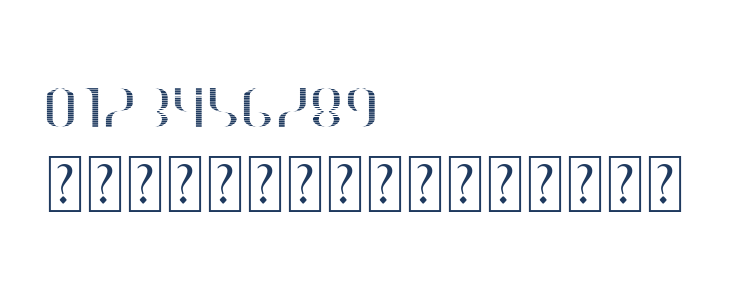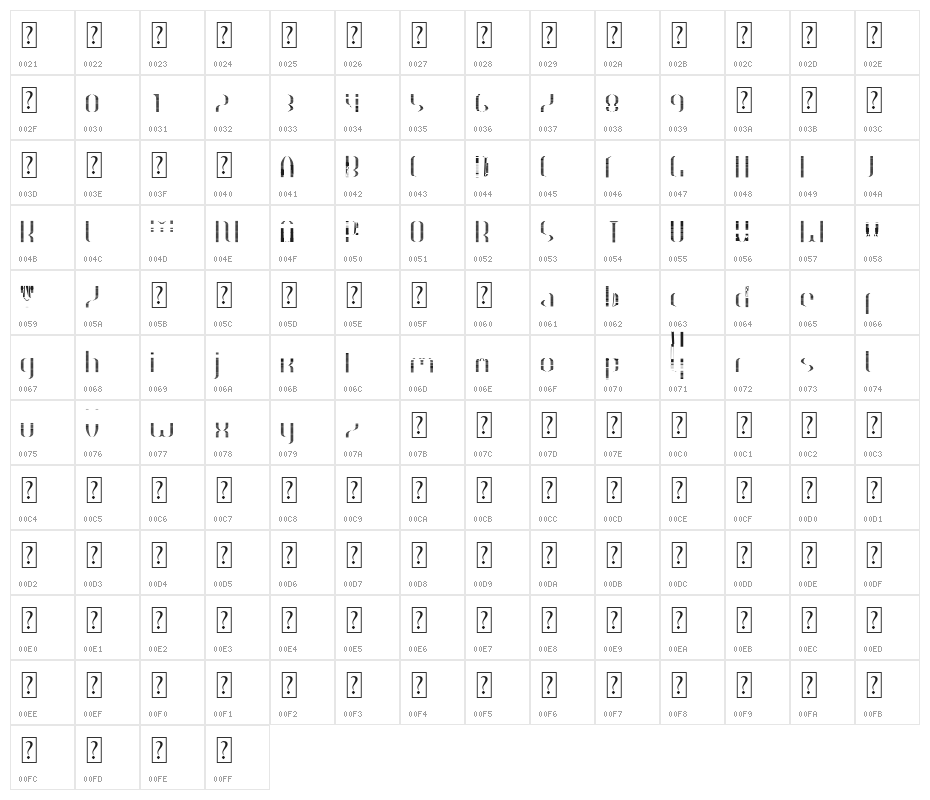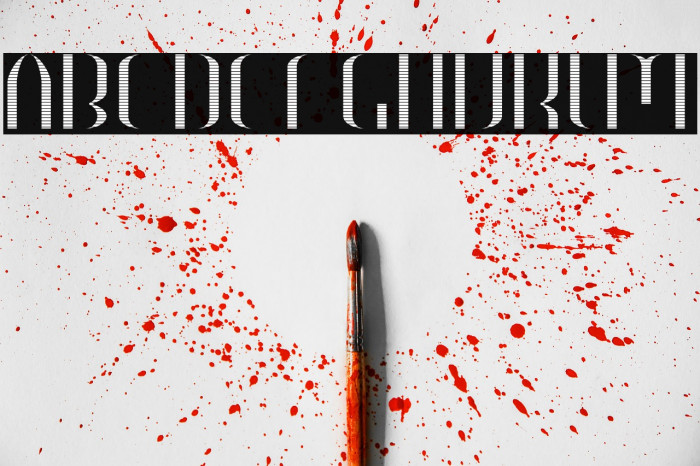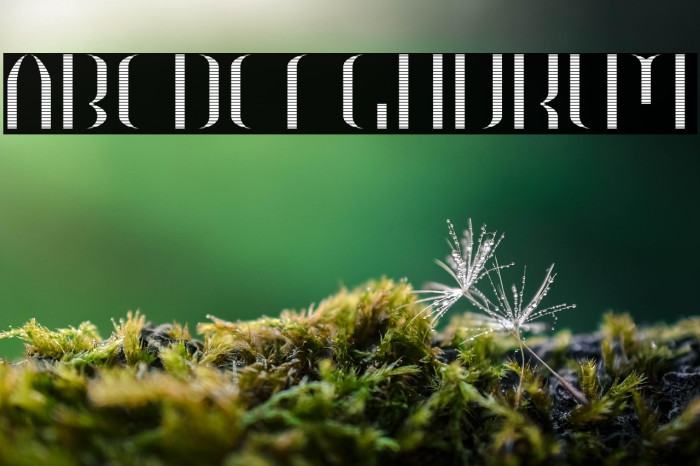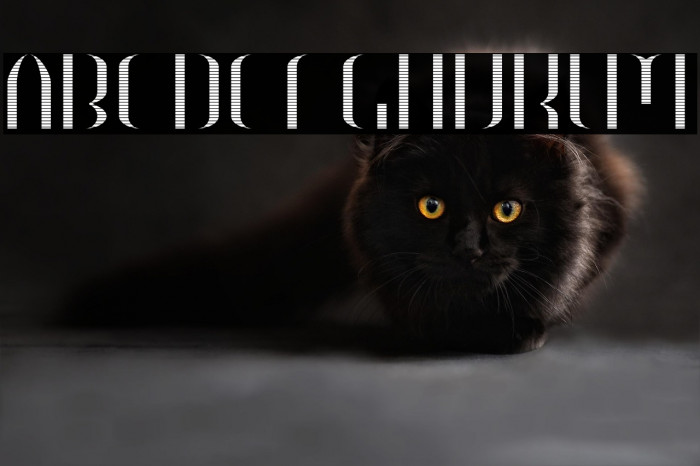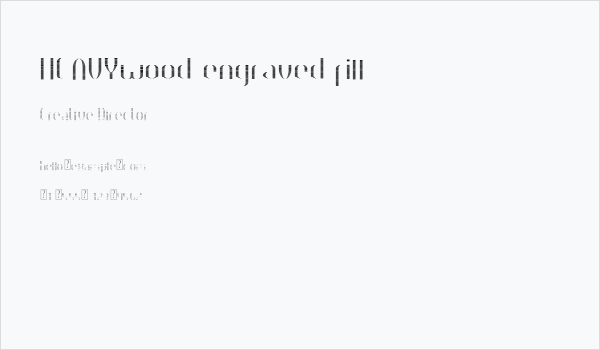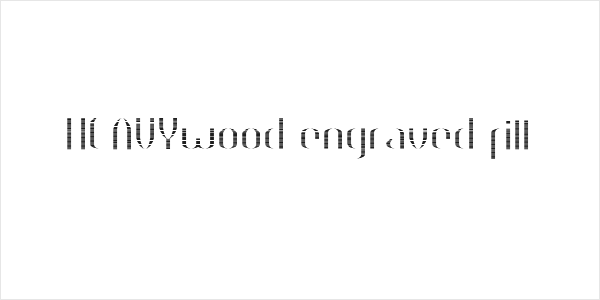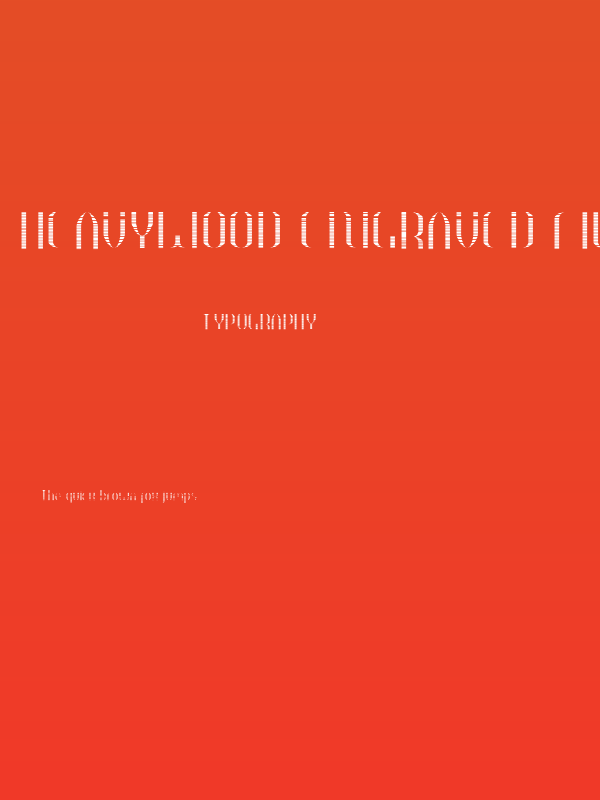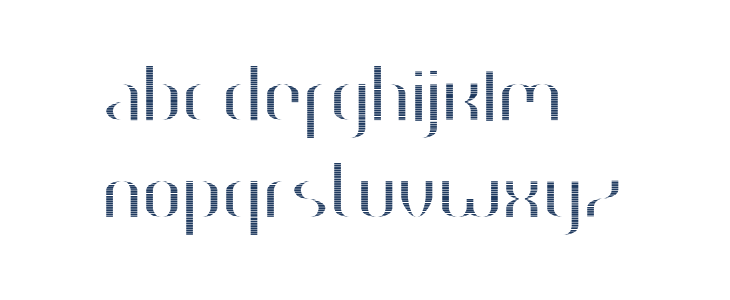
HEAVYwood engraved fill Font
HEAVYwood engraved fill Description
This font features a unique, engraved style with a heavy emphasis on vertical lines and a woodcut appearance. The characters are bold and striking, with a decorative flair that suggests a vintage or handcrafted aesthetic. Each letter is composed of a series of parallel lines that create a textured, shaded effect, reminiscent of traditional wood engraving techniques. The uppercase and lowercase letters maintain a consistent style, with a slight variation in stroke width that adds to the overall visual interest. The numbers and special characters follow the same design principles, ensuring a cohesive look across all elements.
| Proposed Projects | Ideal for projects that require a vintage or handcrafted look, such as posters, book covers, or branding for artisanal products. |